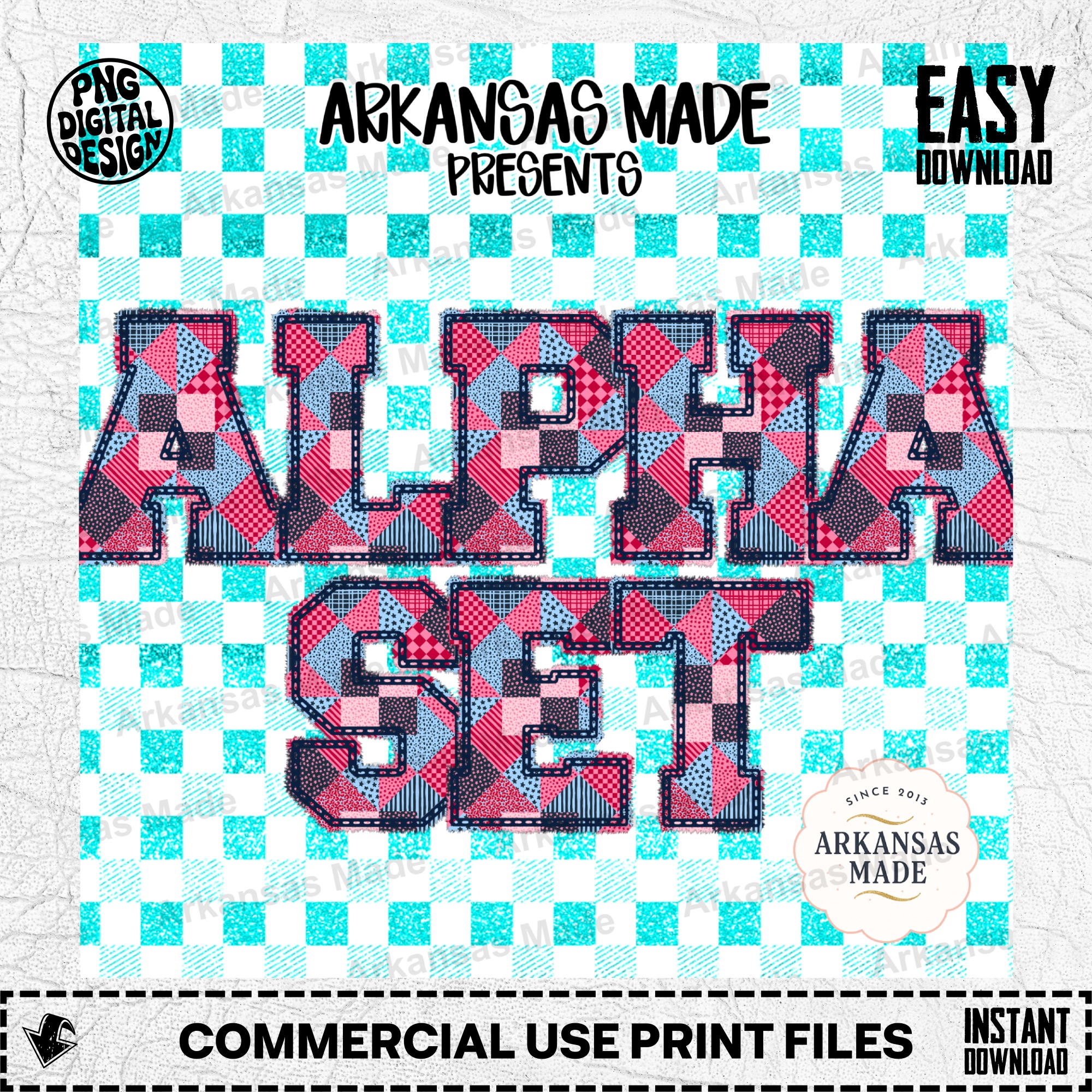
Patchwork Alpha PNGs Quilted Alphabet Letters, Red Blue Patriotic Initial PNG, Digital Download for Crafts, Varsity Font PNG, Farmhouse DIY
Get our charming Patchwork Alpha PNGs with a quilted fabric effect! Perfect for crafters creating unique personalized gifts and custom projects. Each letter in this digital alphabet set features a delightful faux patchwork design in patriotic red, white, and blue hues with a stitched outline. Ideal for DIY enthusiasts, small business owners, and those who love farmhouse or country aesthetics. Create stunning personalized apparel, home decor, invitations, or gifts for birthdays, back-to-school, or special sorority events with these versatile Varsity-style letters.